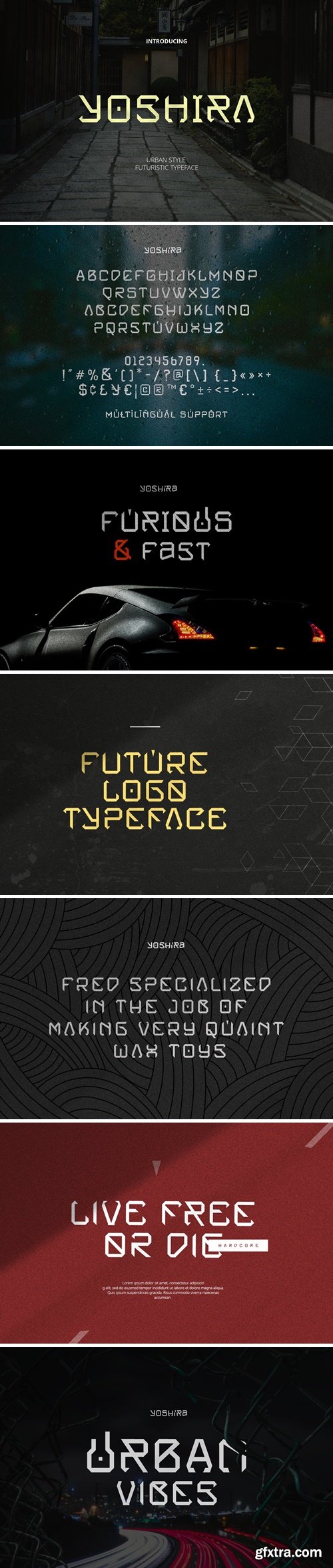
Yoshira Font
Experience the next generation of typography with Yoshira - the epitome of chic modernity and innovation encapsulated in a font. Painstakingly engineered, Yoshira sports a sleek charter with keen edges that embody the spirit of pioneering creativity. Each individual character encapsulates a refreshing futurism, rendering Yoshira the go-to choice for endeavors seeking a fresh, modernistic essence. Yoshira's audacious yet refined charisma makes it a force to reckon with, demanding immediate attention. It's particularly adept for grabbing eyeballs in headlines, logos, and branding collaterals in today's bustling digital terrains. Geometric simplicity and clean strokes endow it with a sense of coherence, while pointed edges introduce elements of mystery and toughness.
Features:
Futuristic look
Basic Latin Glyphs
All Caps Letter
Modern and Stylish
Alternates glyphs
Numeral & Punctuation
Currencies
Multilingual Support